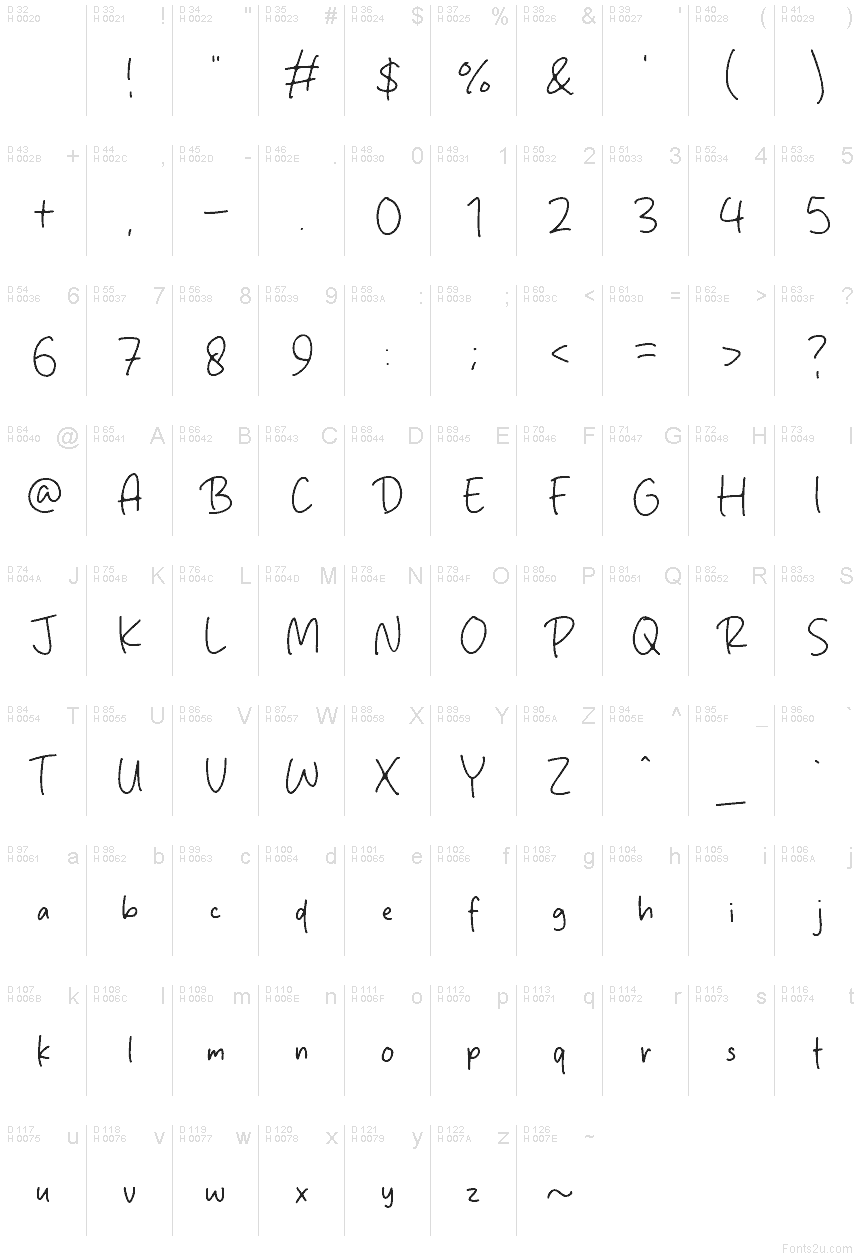
Boster Morning
\nBoster Morning font by MJType embodies a casual and approachable handwritten style. Its relaxed appearance gives off an inviting and friendly feel, making it perfect for adding a personal touch to any project. This modern aesthetic free handwritten font showcases an effortlessly charming look that suits a variety of design purposes.
Use this font in advertising materials, posters, social media graphics, logotypes, packaging designs, branding projects, wedding invitations or photos, product labels and tags. Also use it in personalized cards- birthday cards or greeting cards; T-shirt designs or motivational quotes.